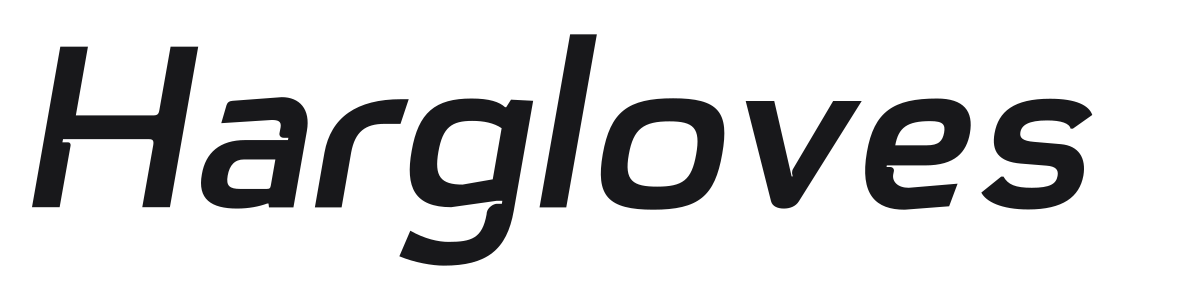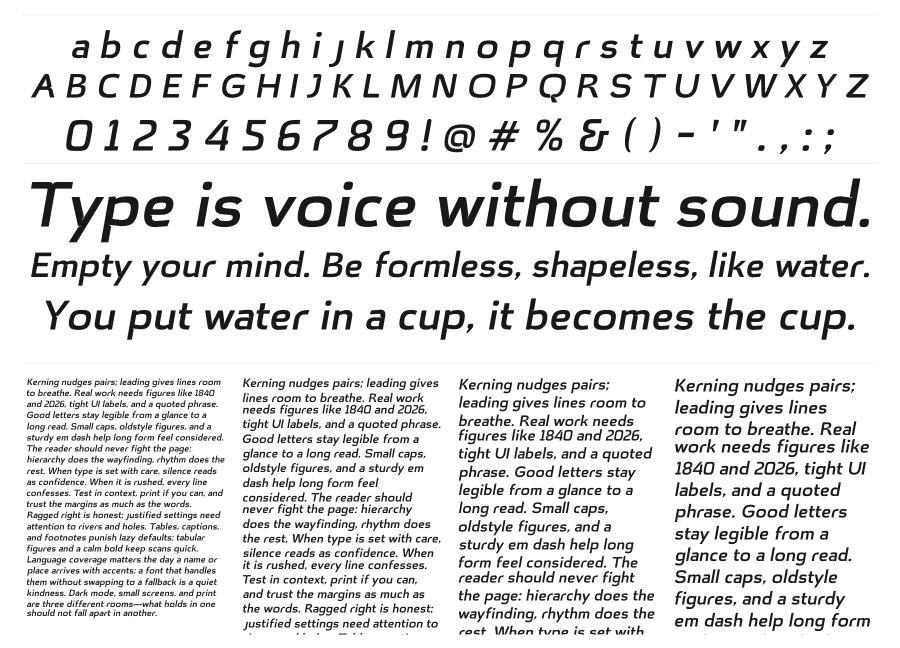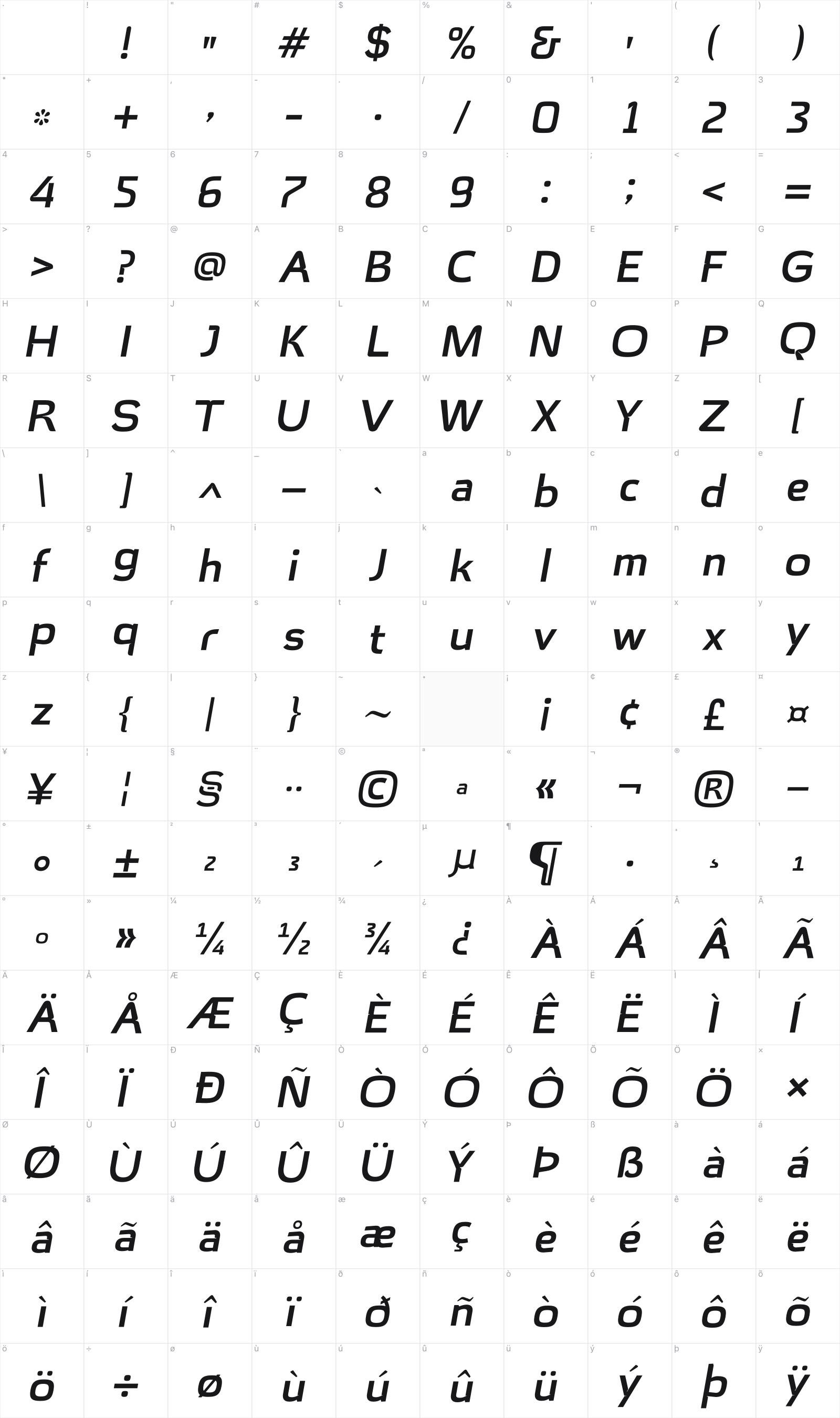
Hargloves
Hargloves is a wide geometric sans-serif with a confident semi-bold italic cut and softly rounded terminals. The near-monoweight strokes and generous proportions give it a clean, contemporary warmth that works well in headlines, logos, and branding contexts. It sits comfortably in the space between technical precision and accessible friendliness.